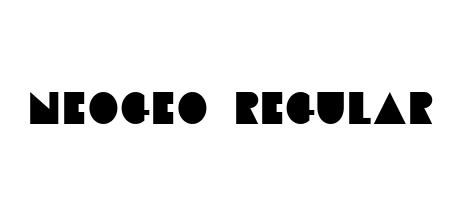
Neogeo
Neogeo Regular is a bold, geometric sans-serif typeface. Its chunky, blocky letterforms have a playful yet modern feel. The unique letter shapes, some featuring cut-out sections, give it a distinctive, almost playful, retro-futuristic vibe. It's highly legible and commands attention.